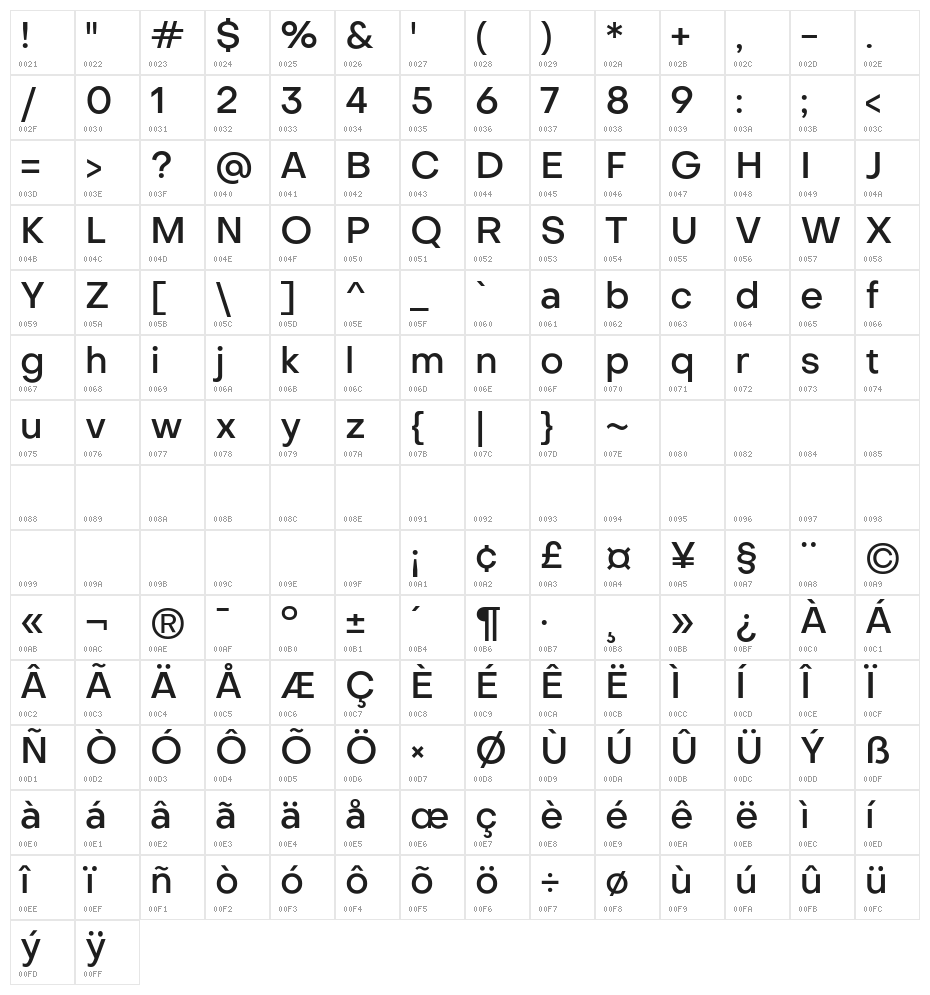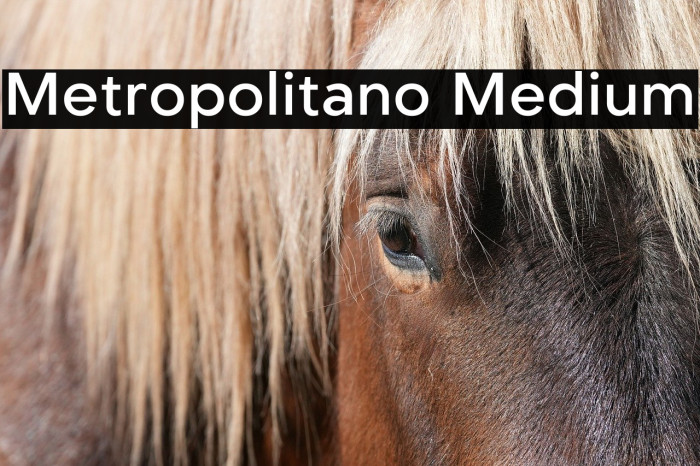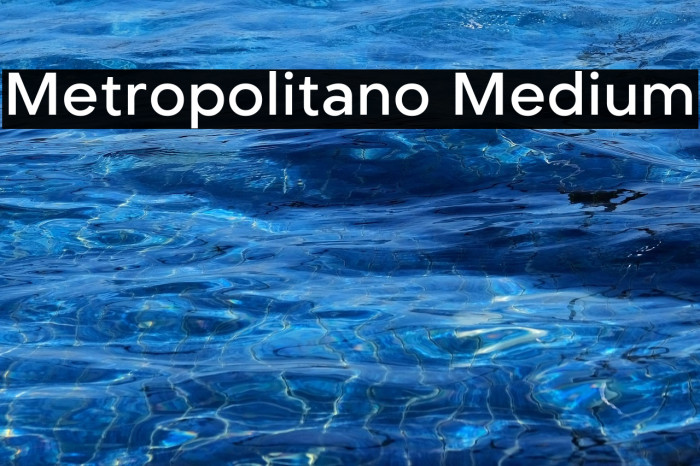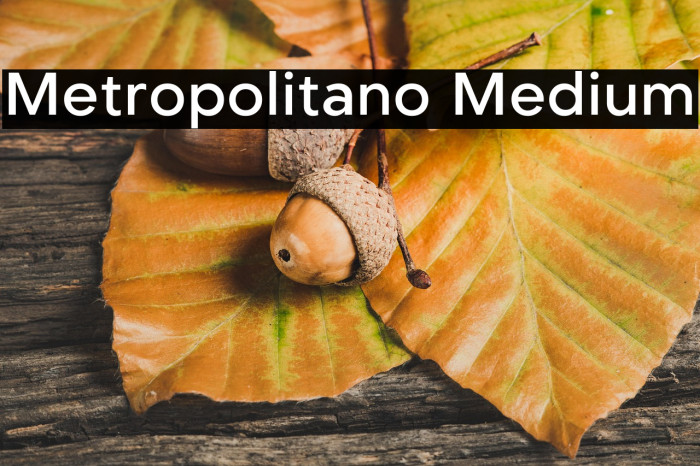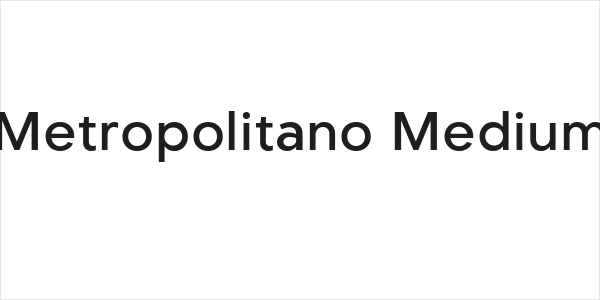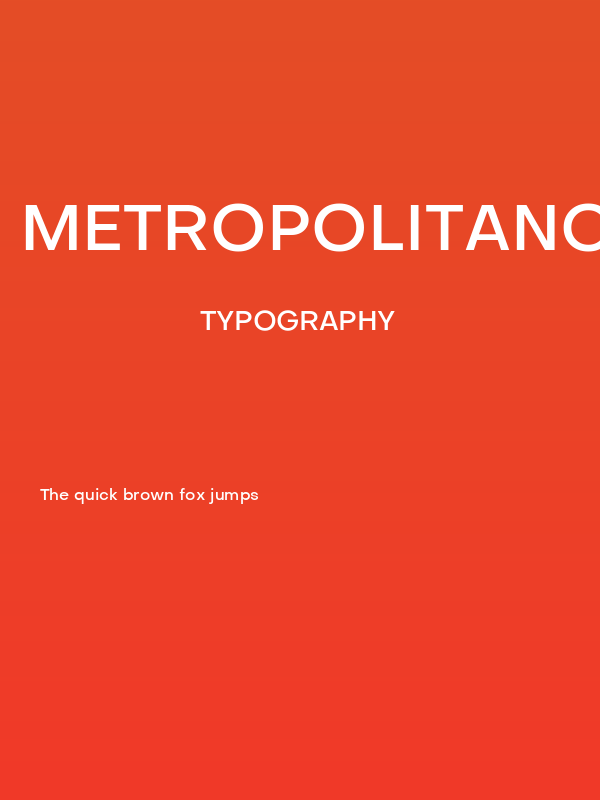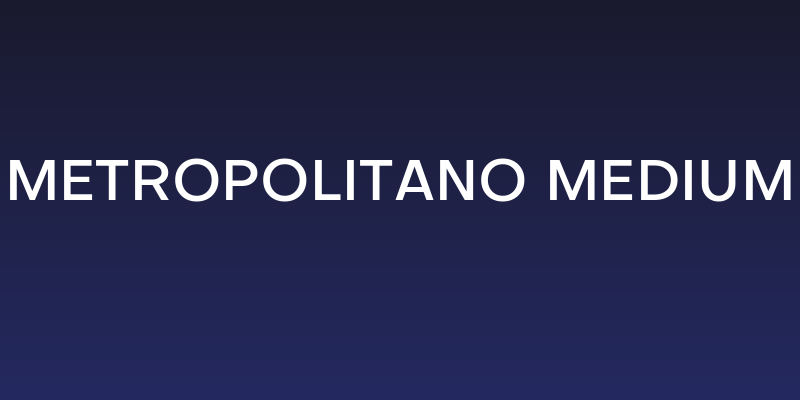
Metropolitano Medium Font
Metropolitano Medium Description
This font features a clean and modern sans-serif design, characterized by its geometric shapes and balanced proportions. The uppercase letters are bold and assertive, while the lowercase letters maintain a consistent and harmonious flow. The numerals are clear and easily distinguishable, making them suitable for various applications. Special characters are well-integrated, ensuring versatility in design projects. The overall appearance is sleek and professional, making it ideal for contemporary branding and digital interfaces.